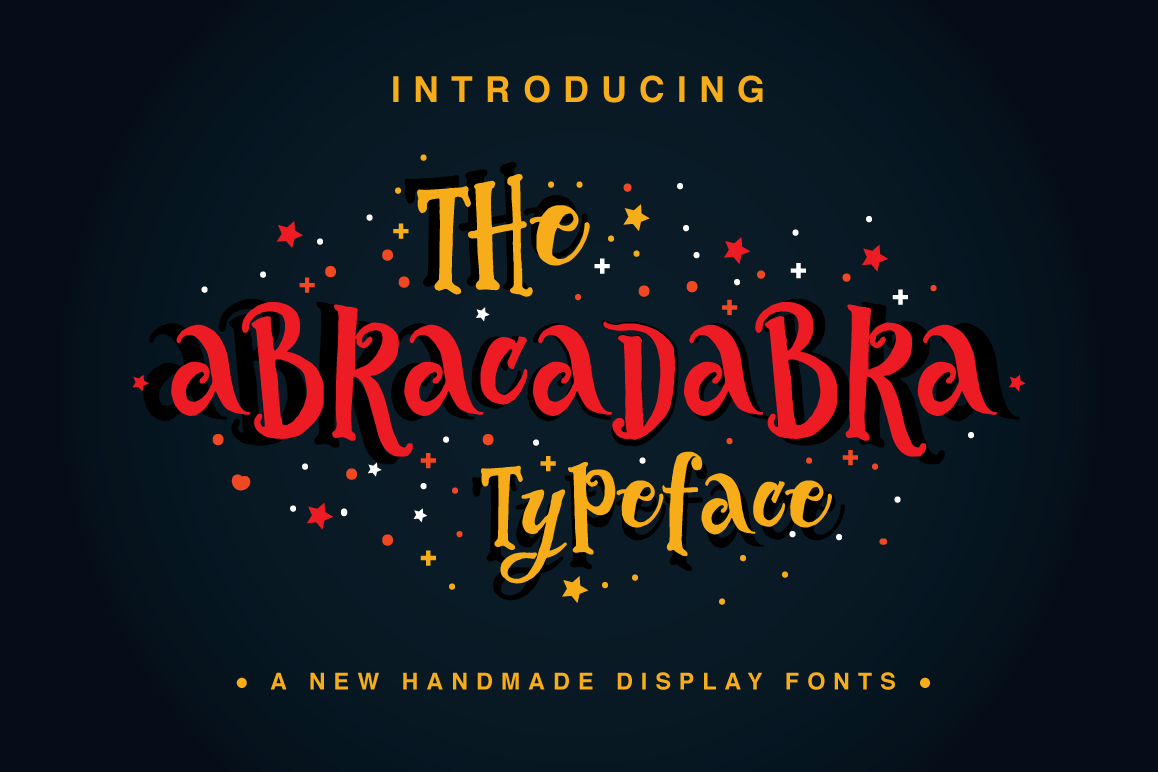
The Abracadabra Typeface
The Abracadara Typeface is a new handmade and fun display font
intended to use in retro and vintage design styles. This font is sequel
from The Simsalabim Typeface It is suitable for poster, lettering, greeting card, t-shirt design etc.
This font contains with special ornamental uppercase that can be used to create a stand out and attractive message.